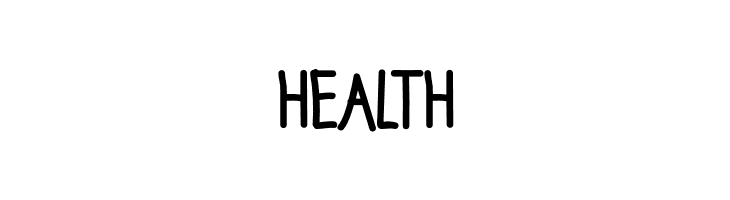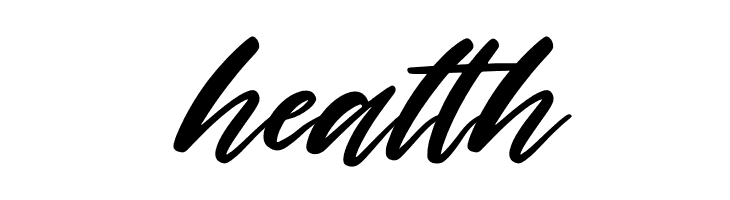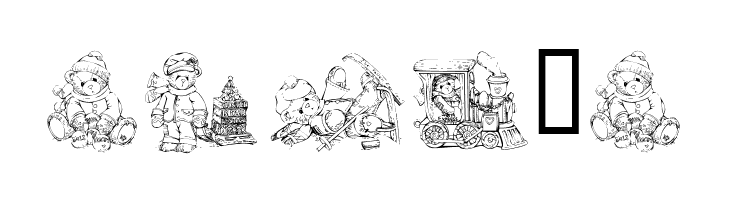
A bold, hand-drawn font with a brush-like, expressive style.
A bold, playful, and hand-drawn font with a festive feel.
A playful, decorative script font with flowing, interconnected letters and whimsical flourishes.
A bold, whimsical script font perfect for festive and playful designs.
A bold, decorative font with a three-dimensional effect and geometric patterns.
A lively and flowing script font with elegant curves and playful loops.
A playful, elegant script font with flowing, interconnected strokes.
A playful and elegant script font with a handwritten style.
A playful and festive font with smooth, flowing curves and a hand-drawn quality.
A festive, tree-shaped font perfect for holiday designs.
Hand-drawn holiday icon dingbat font.
A playful and elegant script font with a handwritten style.
A playful, cursive font with a festive, handwritten style.
A bold, playful, and three-dimensional font with a comic-style flair.
A sophisticated, cursive font with elegant loops and swirls.
A playful, bold, and handwritten-style font with a quirky charm.
A playful, elegant script font with a handwritten feel and bold strokes.
A playful, bold, and whimsical hand-drawn font with a festive feel.
A bold, flowing script font with a playful, handwritten style.
A dynamic, cursive script font with a lively, handwritten style.
A collection of festive and decorative holiday-themed illustrations.
Hand-drawn doodle font with Christmas and holiday illustrations.
A bold, playful font with a 3D shadow effect and rounded edges.
A playful and elegant script font with smooth, flowing letterforms.
A festive, snowflake-adorned cursive font perfect for holiday themes.
A graceful script font with flowing, cursive letterforms.
A bold, handwritten font with a playful and energetic style.
A playful, bold, and rounded font with a hand-drawn, whimsical style.
Casual, hand-drawn sans-serif with playful curves.
Playful, rounded sans-serif with a hand-drawn look.
Festive, bold display font with snowflake and star decorations.
Bold, festive display font with jagged, playful edges.